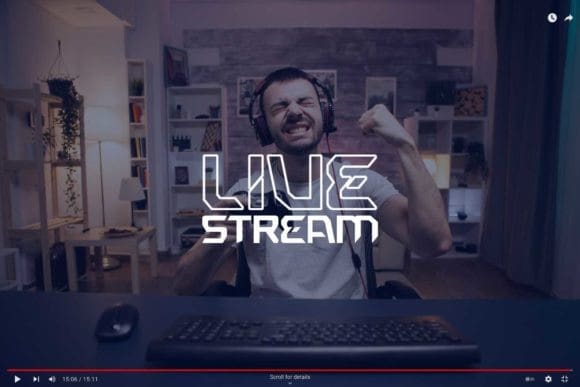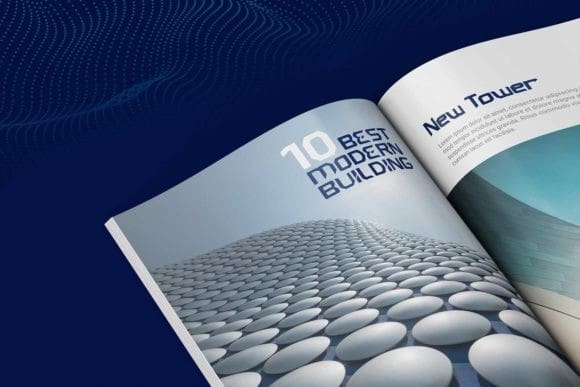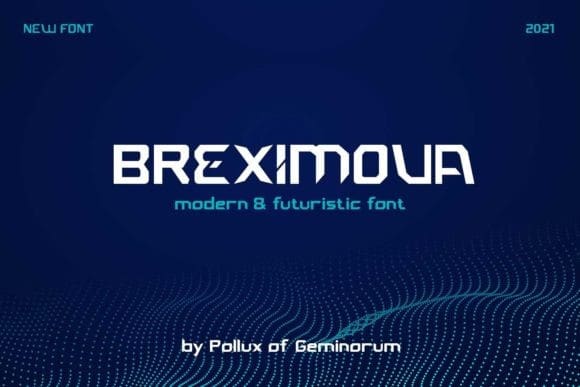
Breximova Display Font
Breximova Display Font is a modern & futuristic display font suitable for modern, future, science fiction, and technology themes. It’s also great for gaming and e-sport content.
With this font, you can design posters, magazines, banners, logos, social media content, video promotion with a techno feel.